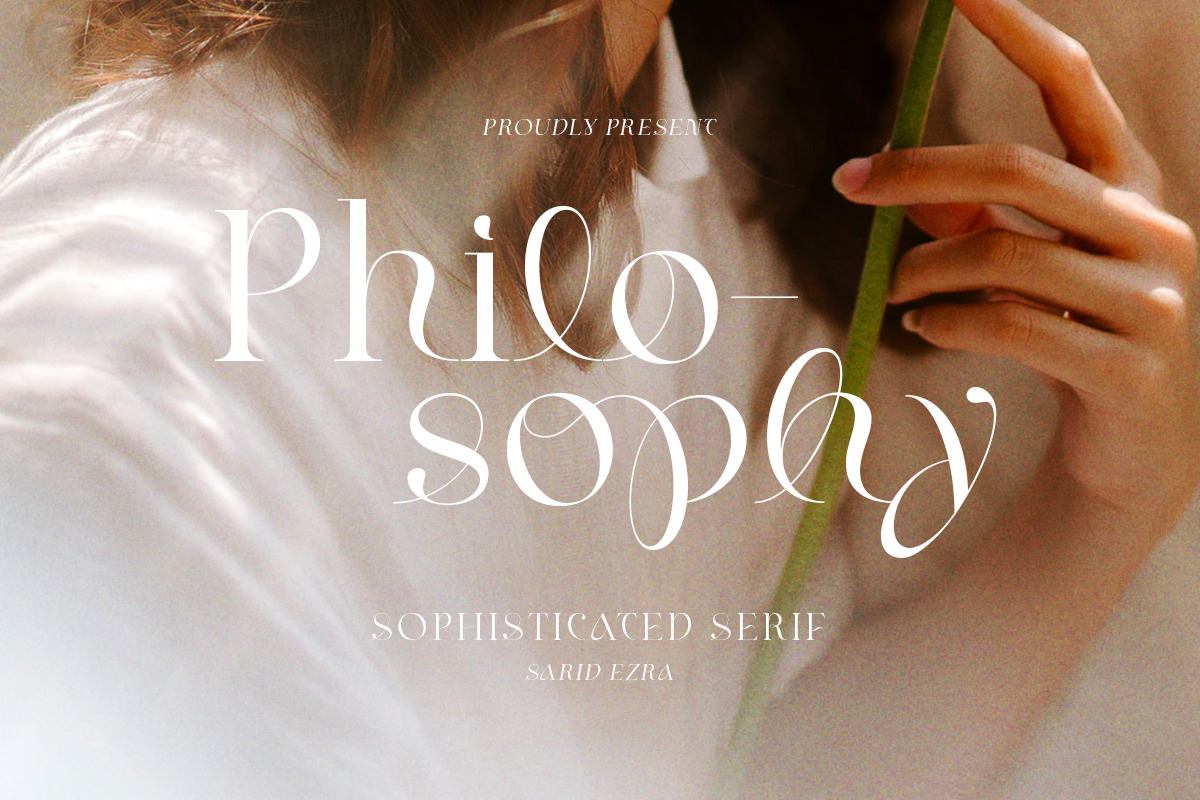
Philosophy Font Free Download is a sophisticated serif typeface that blends classic elegance with modern minimalism. With its refined curves, high contrast strokes, and graceful serifs, Philosophy is perfect for luxury branding, editorial layouts, packaging, wedding stationery, and stylish logos.
Crafted for designers seeking a timeless yet contemporary look, Philosophy includes uppercase and lowercase characters, numerals, punctuation, and a beautiful set of ligatures. Its versatility makes it equally suitable for bold headlines or elegant body text.
Whether you're designing a high-end fashion label, a boutique brand identity, or a classy magazine spread, Philosophy Font Free Download delivers elegance, clarity, and charm. Use it freely for personal or mockup projects, and make sure to purchase the proper license for any commercial use. Elevate your typography with the refined beauty of this sophisticated serif font.